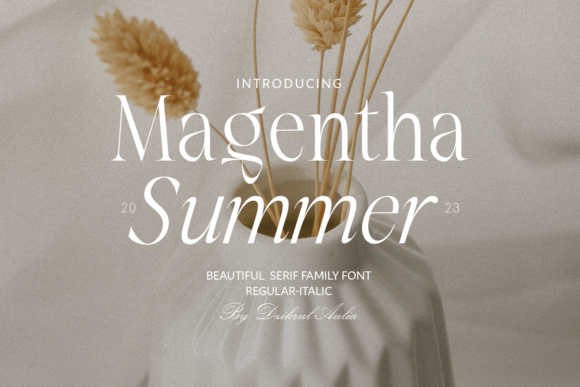
Journey into the world of Magentha Summer, a font family that exudes beauty and elegance. With its two striking styles, Regular and Italic, this font is the epitome of sophistication, ready to transform your design projects into captivating masterpieces.
Magentha Summer is meticulously crafted, ensuring each letter is a visual delight. Its exquisite design makes it the perfect choice for crafting stunning quotes and captivating long paragraphs. Let your designs bloom with femininity and grace as you use this font for fashion projects, magazine layouts, and logos that demand attention with their simple yet enchanting allure.
Discover the harmony of Magentha Summer as it seamlessly blends with script fonts, enhancing the artistic appeal of your projects. Combine these two font styles to create distinctive and alluring designs that are sure to captivate. Unleash your creativity and create motivational quotes, inspiring messages, and social media posts that ignite the senses with Magentha Summer's charm.
Picture yourself crafting magazine layouts and fashion promotions with Magentha Summer, adding a touch of luxury and femininity that elevates your work to new heights. This font is the perfect marriage of beauty and functionality, empowering you to create impressive and engaging designs that leave a lasting impact.
Embrace the allure of Magentha Summer and watch your design projects flourish. Get ready to make your mark on the world with this extraordinary font family that will transform your creative vision into reality. Step into the world of Magentha Summer today and embark on a journey of design excellence.